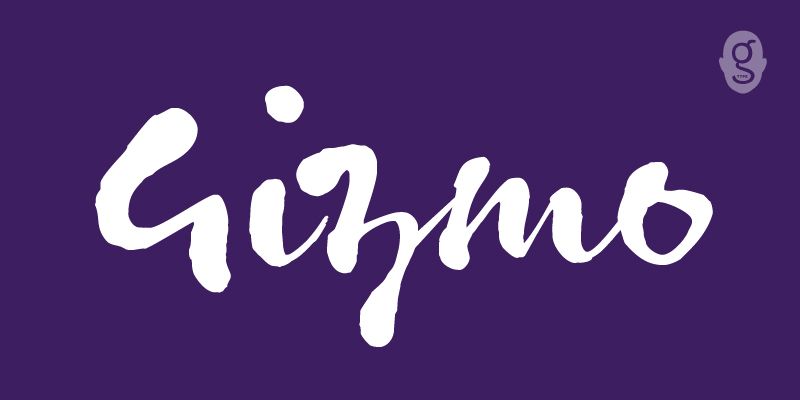
Gizmo specimen
Gizmo
Gizmo is a rustic handwriting font with clever programming creating an authentic brush script appearance and hand-drawn dynamic.